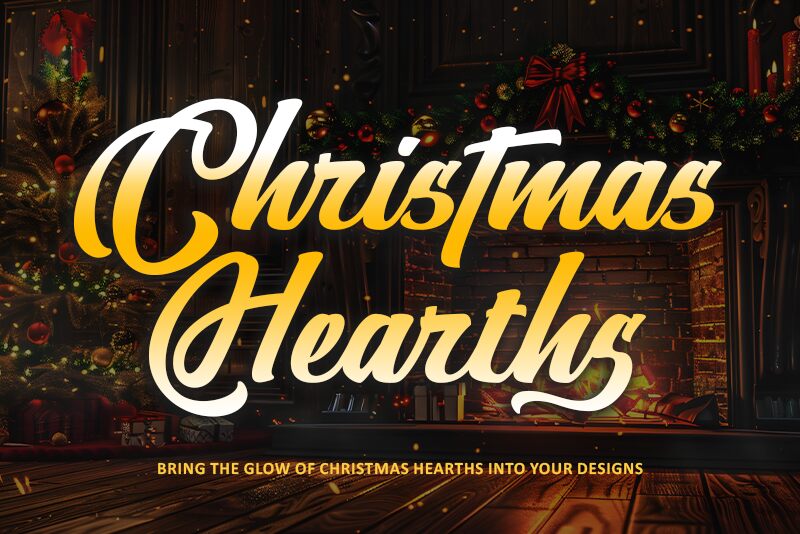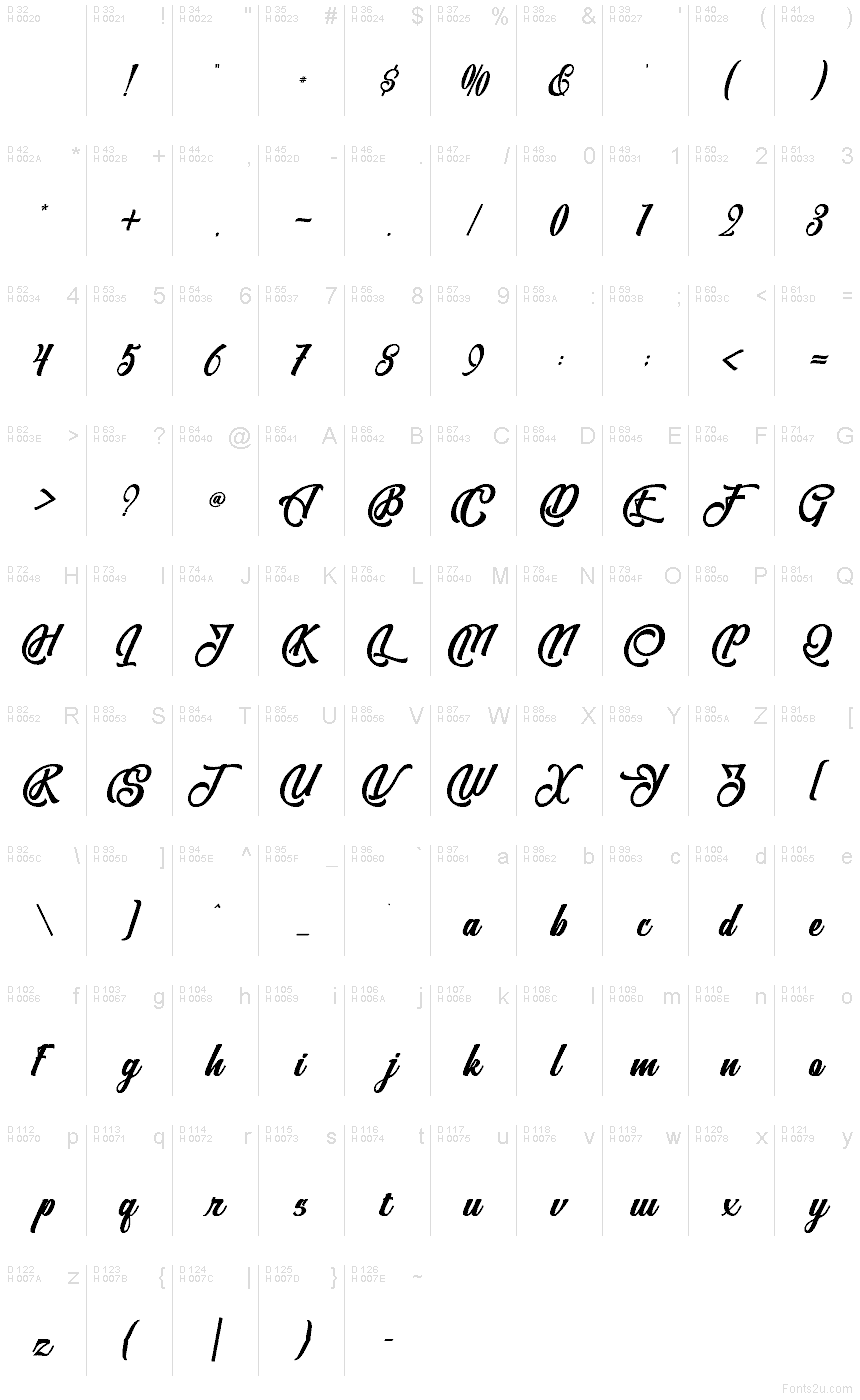
Christmas Hearths font by Letterara is a free Christmas script typeface that feels like it was written in smooth, inky strokes across a holiday card. Thick, flowing letters curl and loop like ribbon, while the connected script keeps words feeling warm and inviting, never stiff. There’s a gentle vintage vibe here too, as if pulled from an old-fashioned storefront window or a favorite family recipe card.
Using Christmas Hearths, your text instantly takes on that fireside, cocoa-and-carols mood—great for greeting cards, gift tags, mug designs, social posts, party invitations, and holiday branding. This free font holds up well at larger sizes where its sweeping curves can really breathe; pair it with a clean sans serif for small details like dates or taglines to keep your layouts festive but readable.